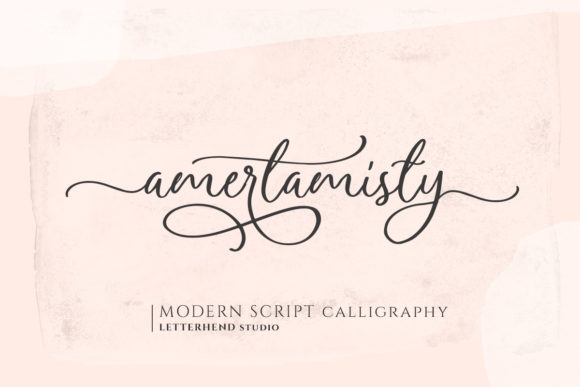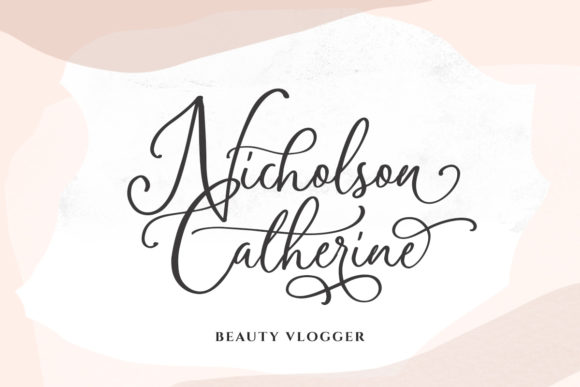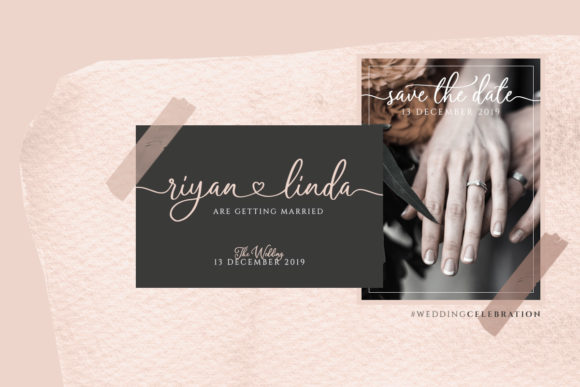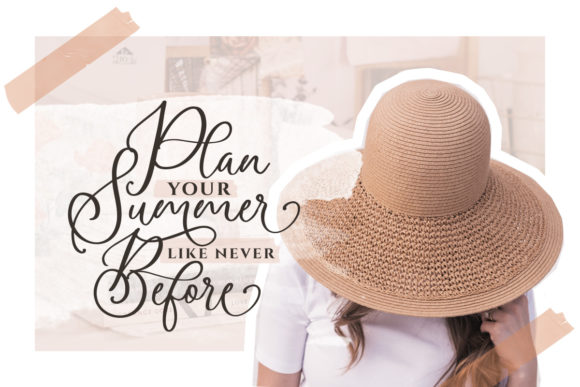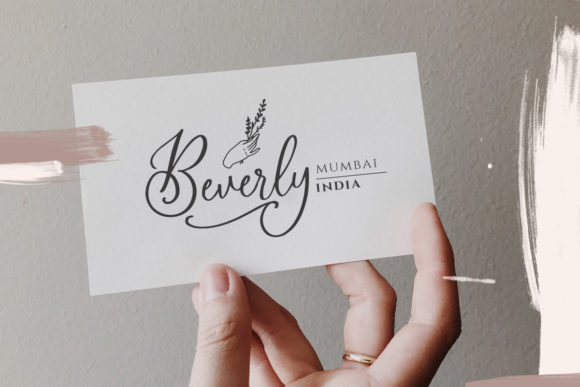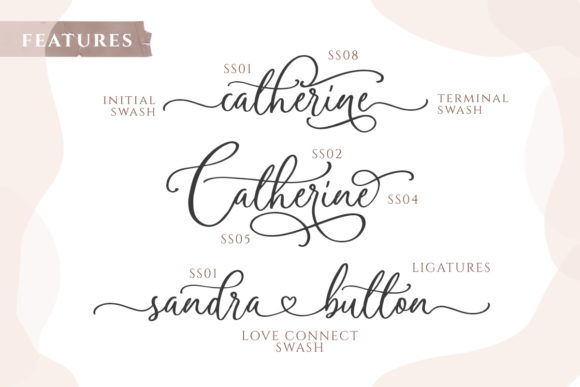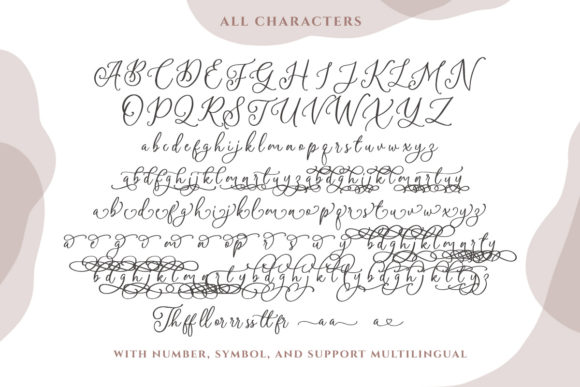
Amerta Misty Script Font
About Amerta Misty Script Font
Amerta Misty Script is a sweet and simple crafting font that’s ideal for adding a romantic touch to your next design idea.